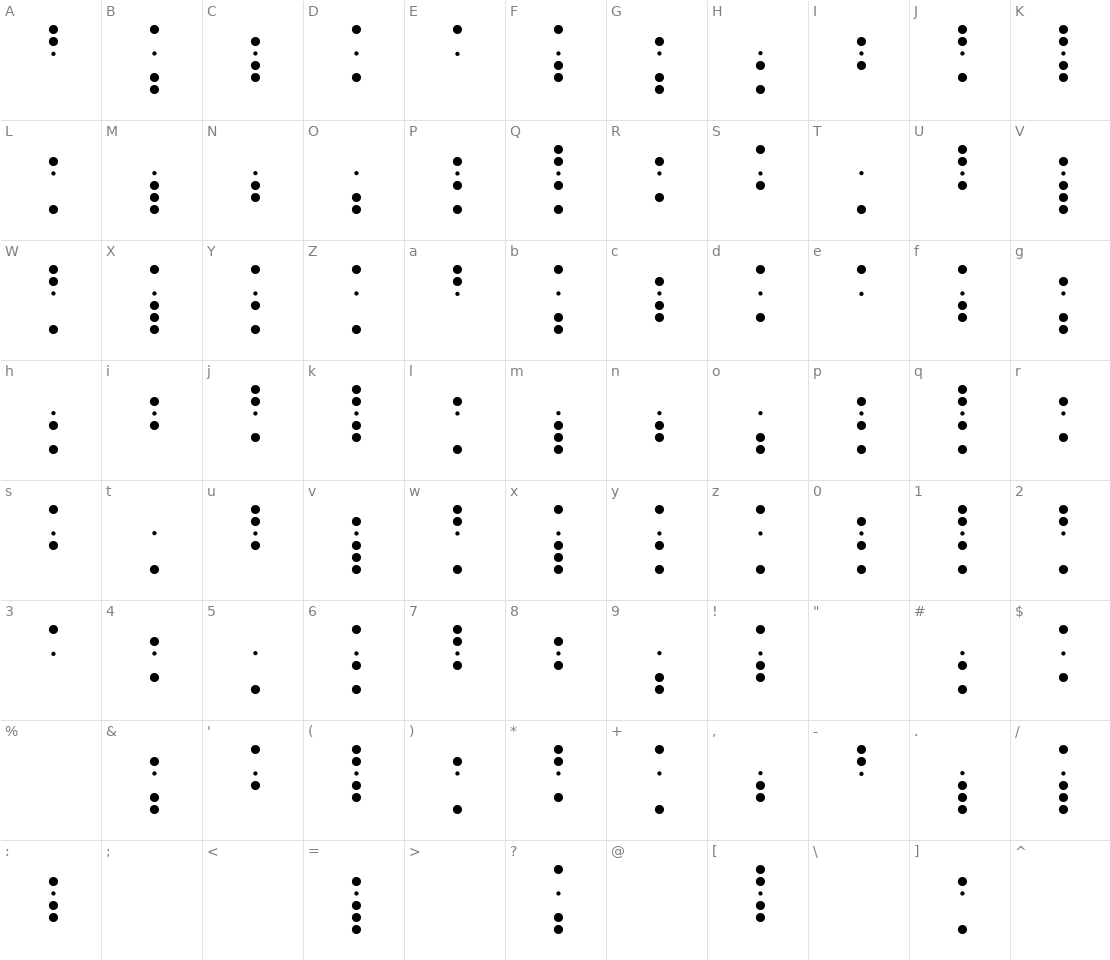
Baudot 5
by Richie Whyte
Baudot 5 is an experimental typeface by Richie Whyte that translates characters into dot-based patterns inspired by the Baudot telegraph code, the 5-bit binary system used in early telegraphy. Rather than conventional letterforms, each glyph reads as an encoded symbol, making it more of a visual cipher than a readable font. It's a niche pick for data-themed artwork, installations, or design projects exploring the intersection of communication systems and typography.